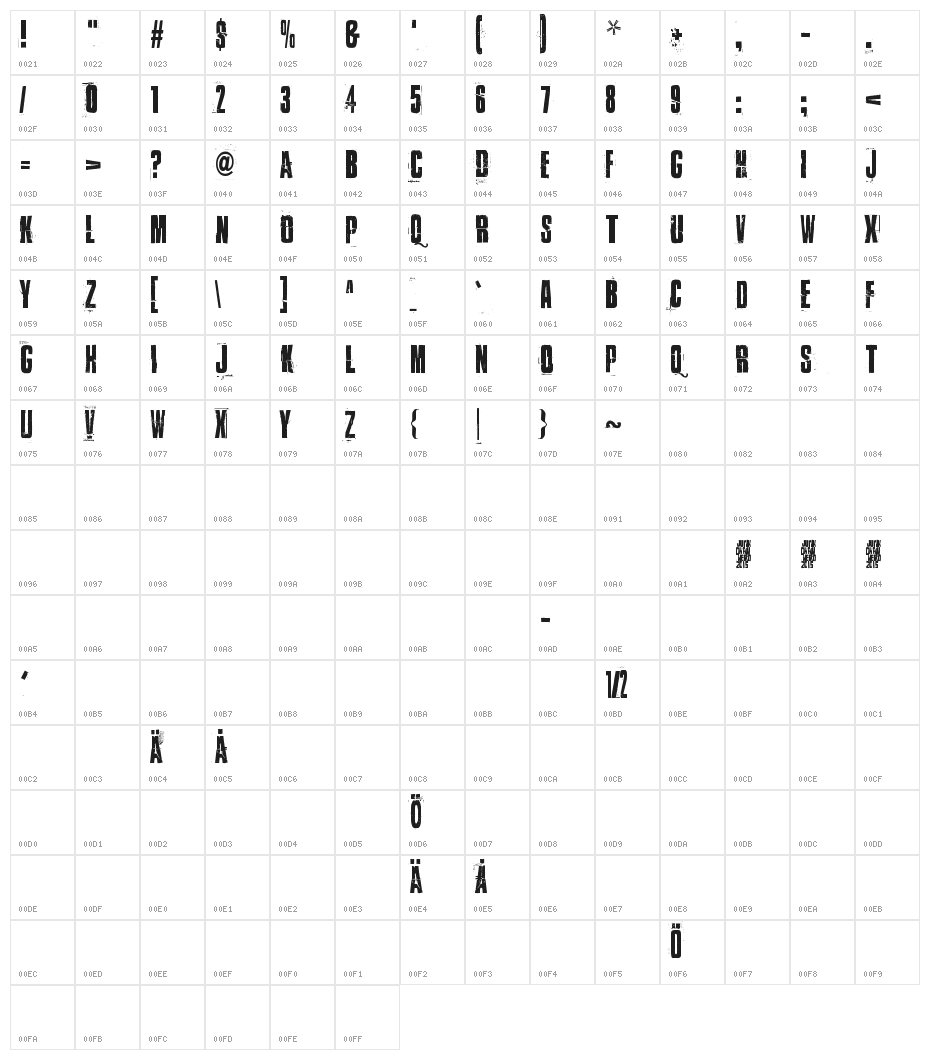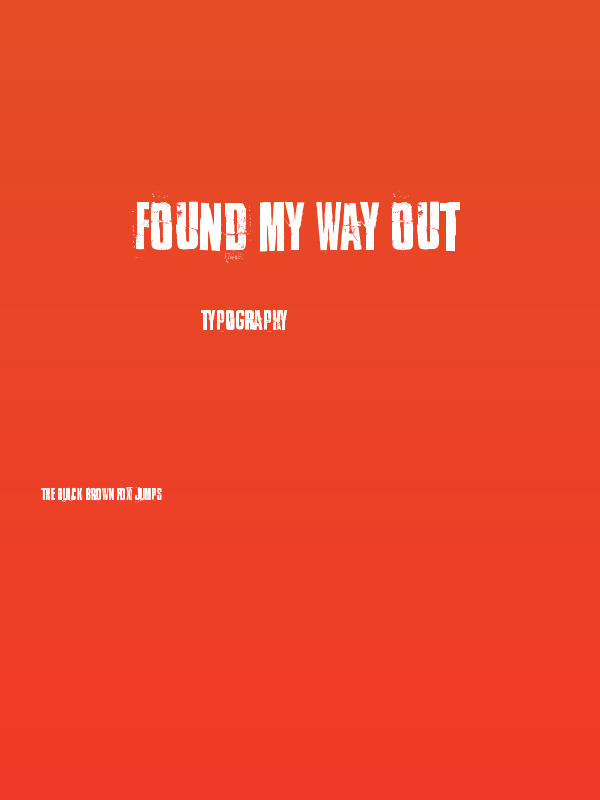
Found my way out Font
Found my way out Description
This font features a bold, distressed style with a rugged, textured appearance. The characters are uppercase and have a stencil-like quality, giving them an industrial and gritty feel. The uneven edges and worn-out look suggest a vintage or retro aesthetic, reminiscent of old posters or signage. The font's boldness makes it highly visible and impactful, suitable for designs that require a strong visual presence. The numbers and special characters maintain the same distressed style, ensuring consistency across all elements.
| Proposed Projects | Ideal for projects such as posters, album covers, branding for edgy or industrial-themed products, and any design that requires a bold, eye-catching typeface. |